As competitors, Google, Apple, Microsoft, and Adobe are normally hard-pressed to agree with each other, and it’s especially rare when design is involved. But two weeks ago, these four frenemies signed off on a major new standard–one that could revolutionize digital typography. It’s called a variable font.
The new standard is part of an update to OpenType, the most advanced cross-platform standard for scalable computer fonts, which was created by Adobe and Microsoft back in 1996 and which is still used for the vast majority of modern digital fonts. And these so-called variable fonts are designed to be flexible and adaptive within OpenType, aiming to do for digital type design what responsive design did across the web. But what exactly is a variable font? And why are Apple, Google, Adobe, and Microsoft so eager to see them in the wild?
The Problem With Fonts
For most people, the words font and typeface are interchangeable, and that’s mostly okay. But to understand variable fonts, we need to get into the weeds a little bit. We tend to think of a “font,” let’s say Helvetica, as being a single design that comes in different weights (bold, italic, thin, compressed, etc.). In actuality, though, Helvetica is a typeface family, which contains numerous different fonts: a totally separate design for Helvetica Bold, another for Helvetica Compressed, and so on.
On computers, each of these different fonts is essentially a totally different file, which means that if a designer wants to use multiple weights of a single typeface in their app or website, they need to have their users download each one. That increases app file sizes and web load times–so right now, most designers don’t include multiple fonts from a single typeface in their designs. Instead, they rely upon rendering engines to fake it, shrinking, slanting, or blowing up a font according to what’s needed.
For instance, properly bolding letters in a typeface requires a separate bold font to do correctly, but almost all rendering engines are happy to fudge it by smearing a font to be wider, in a process called faux bold. Italics can be faked the same way through slanting. The problem with this approach is twofold. First, they often look hideous. A properly designed bold and italic font is more than just a smeared or slanted copy of a baseline font, with letterforms that are specifically tweaked to be more readable in that format. But besides that, faking different font weights and styles isn’t handled consistently across rendering engines, producing results that look different in, say, Chrome than they do in Firefox.
To sum it all up? Right now, using multiple weights and sizes of a single typeface properly requires a bevy of different, individually loaded fonts, bloating the file sizes of apps and the load times of websites. Computers can fake it, but the results are often gross, and they’re not consistent across platforms and browsers.
How Variable Fonts Can Help
So how will variable fonts help fix this problem? Basically, by giving type designers their own version of responsive design: a single font file that can dynamically morph between different weights and sizes as its designer intended while remaining consistent across platforms.
“A variable font is a single font that works like multiple fonts,” explains Tim Brown, head of typography for Adobe Type, who helped solidify the variable font standard. “They’ll lead to faster, better websites; smaller app sizes; more flexible typography; and richer typographical palettes.”
Existing OpenType fonts are what are called outline fonts. Inside the file, each letterform is defined as a mathematical series of lines and curves, which your computer draws on screen in real time. Compare this to bitmap fonts, which are essentially graphic files limited in resolution; outline fonts have the advantage that they can be infinitely scaled without resulting in pixelation. They’re a collection of instructions, not a collection of letters.
Variable fonts add weights and other design tweaks to OpenType by adding a new set of instructions to the format, allowing a font’s baseline design to be tweaked across 64,000 different axes. In other words, a variable font can properly bold, say, the letter “B” not by smearing it, or by downloading a separate font file, but by sending the computer precise mathematical instructions on how to turn a “B” into a B. (“Widen the main stroke by 10%, increase the apertures by 5%, and thicken the shoulders by 7%.”)
Nor is a variable font useful only for bolding. For example, the OpenType format previously allowed fonts to be scaled to any size. But a font that is readable at 12 points on a desktop might be much harder to read on your Apple Watch, or as small print on the bottom of a magazine page. This is why many typeface designers, like Tobias Frere-Jones, create variations of their fonts specifically designed for smaller screens and print sizes. A variable font could contain such instructions, without being a separate file.
Heck, variable fonts are so powerful, there’s technically no reason they can’t contain multiple typefaces. A single variable font could potentially morph between Zapfino, Futura, and Wingdings, without requiring three different font downloads. Brown tells me, though, that variable fonts are really designed to interpolate between different variations of a single design, and not be typeface transformers. “Having multiple typefaces in a single variable font is theoretically possible, but off the top of my head its benefits are unclear and the likelihood of its success is minimal,” he says. “Given how variable font axes are designed, and how a few implementation ideas are already taking hold, it would be extremely uncommon.”
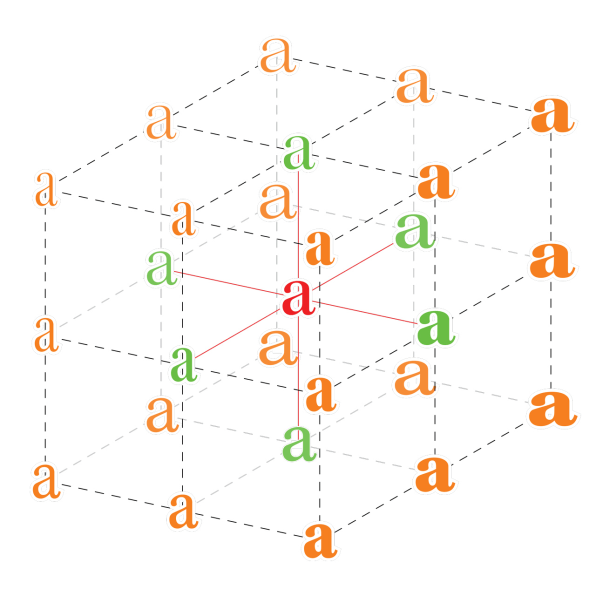
Brown says that while he can’t say when variable fonts will be commonplace, he thinks it’ll be sooner rather than later. “Type designers are already used to thinking about how the different fonts in a typeface relate to each other, and font design tools already have a variable font-like interface,” he says. “It’s not a big jump from there.”